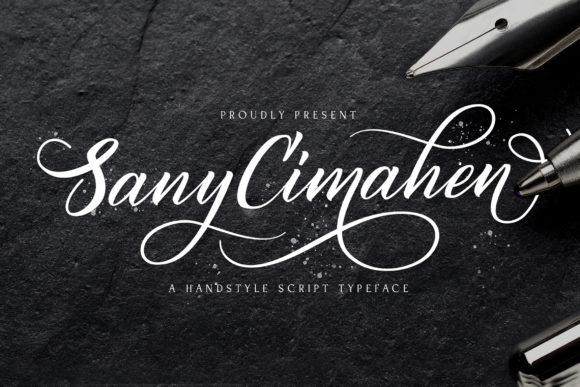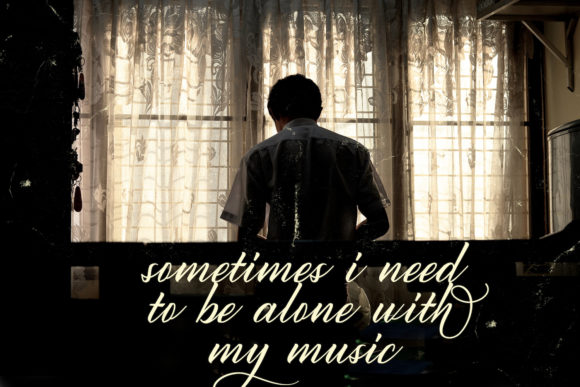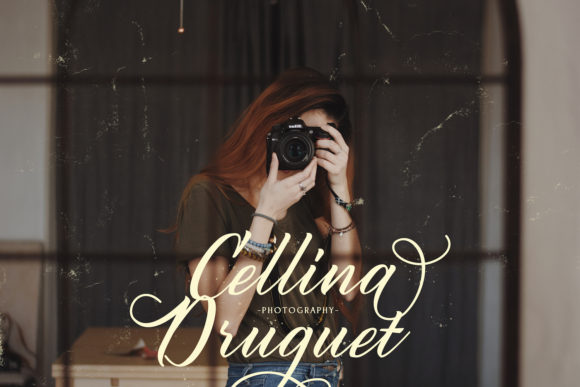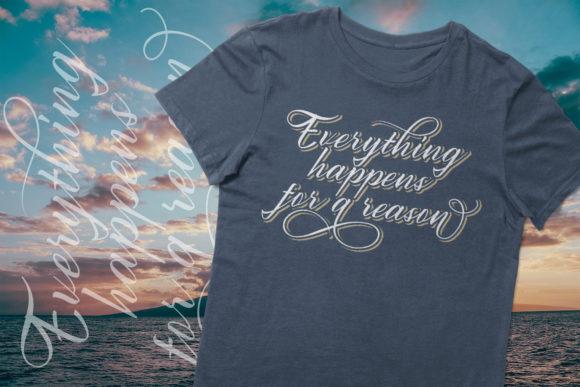
About Sany Cimahen Font
Sany Cimahen is a stunning and graceful handwritten font that exudes elegance and sophistication. With its flowing and timeless style, this font is perfect for a wide range of design projects, elevating them to new heights. Here are some creative ways you can use Sany Cimahen to bring a touch of beauty and class to your designs:
1. Wedding Invitations: Design exquisite wedding invitations with Sany Cimahen, adding a romantic and refined touch to the special day.
2. Branding and Logos: Create elegant branding materials and logos using Sany Cimahen, establishing a sense of luxury and grace for your business or brand.
3. Stationery and Letterheads: Personalize stationery sets and letterheads with Sany Cimahen, enhancing the professionalism and elegance of your correspondence.
4. Book Covers: Design book covers with Sany Cimahen for novels or poetry collections that require a sophisticated and artistic flair.
5. Quotes and Prints: Craft beautiful quote graphics and art prints using Sany Cimahen, featuring inspiring or motivational sayings with a touch of grace.
6. Greeting Cards: Create heartfelt greeting cards with Sany Cimahen for various occasions, expressing warmth and elegance in your messages.
7. Social Media Graphics: Design eye-catching social media posts and graphics using Sany Cimahen, captivating your audience with its elegant appeal.
8. Product Packaging: Apply Sany Cimahen to product packaging designs, elevating the visual appeal and creating a luxurious impression for your products.
9. Event Signage: Use Sany Cimahen for event signage and banners, adding a touch of sophistication to special occasions and gatherings.
10. Calligraphy Art: Use Sany Cimahen for calligraphy art, creating stunning pieces that showcase the beauty of handwritten lettering.
11. Certificates and Awards: Design elegant certificates and awards using Sany Cimahen, honoring achievements with a touch of class.
12. Luxury Branding: Incorporate Sany Cimahen into branding materials for luxury products or services, conveying a sense of exclusivity and refinement.
13. Fine Dining Menus: Apply Sany Cimahen to menus for high-end restaurants or fine dining establishments, adding a touch of elegance to the dining experience.
14. Magazine Headlines: Use Sany Cimahen for magazine headlines and titles, making a strong visual impact and setting a sophisticated tone.
15. Artistic Typography: Experiment with Sany Cimahen in artistic typography projects, exploring unique compositions and layouts for visual artistry.
With its PUA encoding, Sany Cimahen offers easy access to glyphs and swashes, allowing you to unleash your creativity and explore various design possibilities. Embrace the elegance of Sany Cimahen and let it elevate your projects with its distinct and timeless style. Create truly spectacular designs that leave a lasting impression and captivate your audience with the graceful charm of Sany Cimahen!